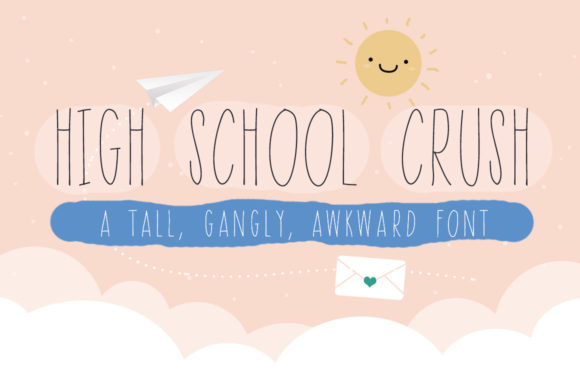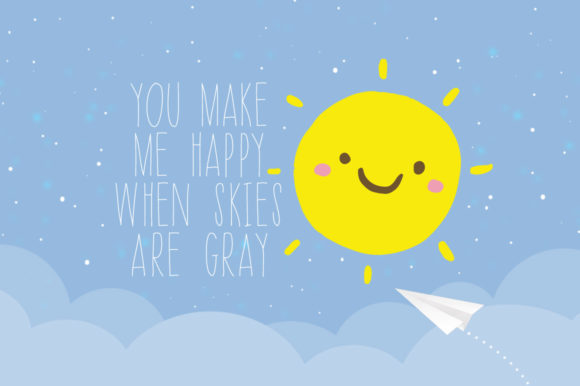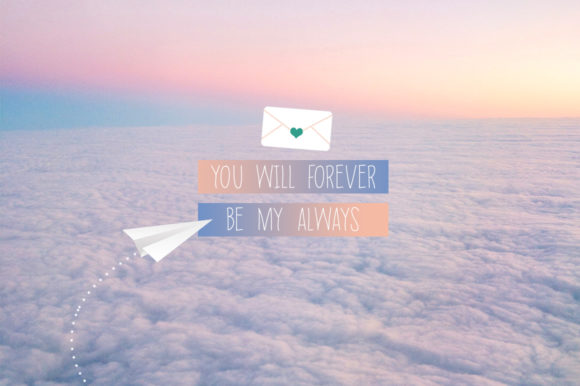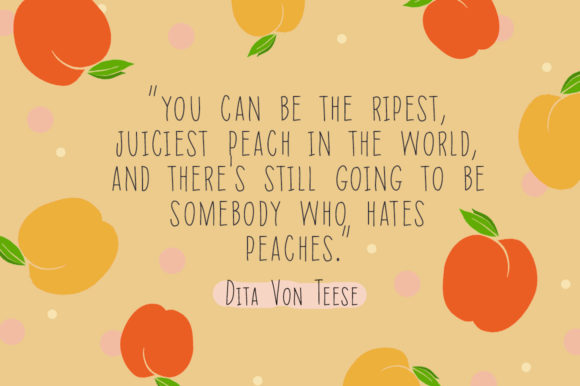
High School Crush Font: A Cute Skinny Sans Serif for Playful Designs!
About the High School Crush Font
The wait is over! The incredible High School Crush Font is now available for your design toolkit. High School Crush is a tall skinny and slightly weird sans serif font that feels both childish and grown up!
Its tall, slender forms make it ideal for headlines, short impactful statements, and branding elements where a touch of quirky sophistication is desired. It works exceptionally well in posters, social media graphics, and even packaging for products targeting a young adult demographic. However, its unusual proportions make it unsuitable for body text or lengthy paragraphs; readability suffers at smaller sizes.
High School Crush’s personality is best described as playful yet refined. It possesses a youthful energy without sacrificing elegance. This duality makes it a versatile choice.
Consider pairing it with a classic serif like Garamond for a sophisticated contrast, or a geometric sans-serif like Futura for a modern, balanced feel. A script font like Allura could add a touch of handwritten charm for specific applications, enhancing its playful aspect.